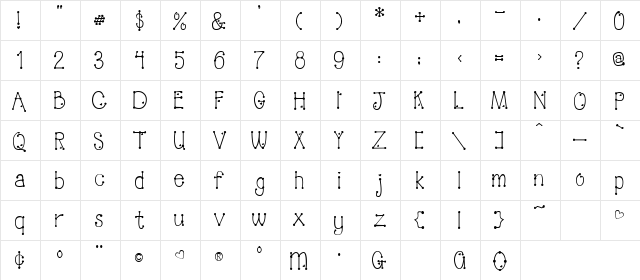
PeggyFont Light
Design Context for PeggyFont Typeface
PeggyFont offers clean, dependable letterforms without strong stylistic allegiance, making it a practical choice for designers who need flexibility. Its slender proportions lend an understated elegance to any composition.